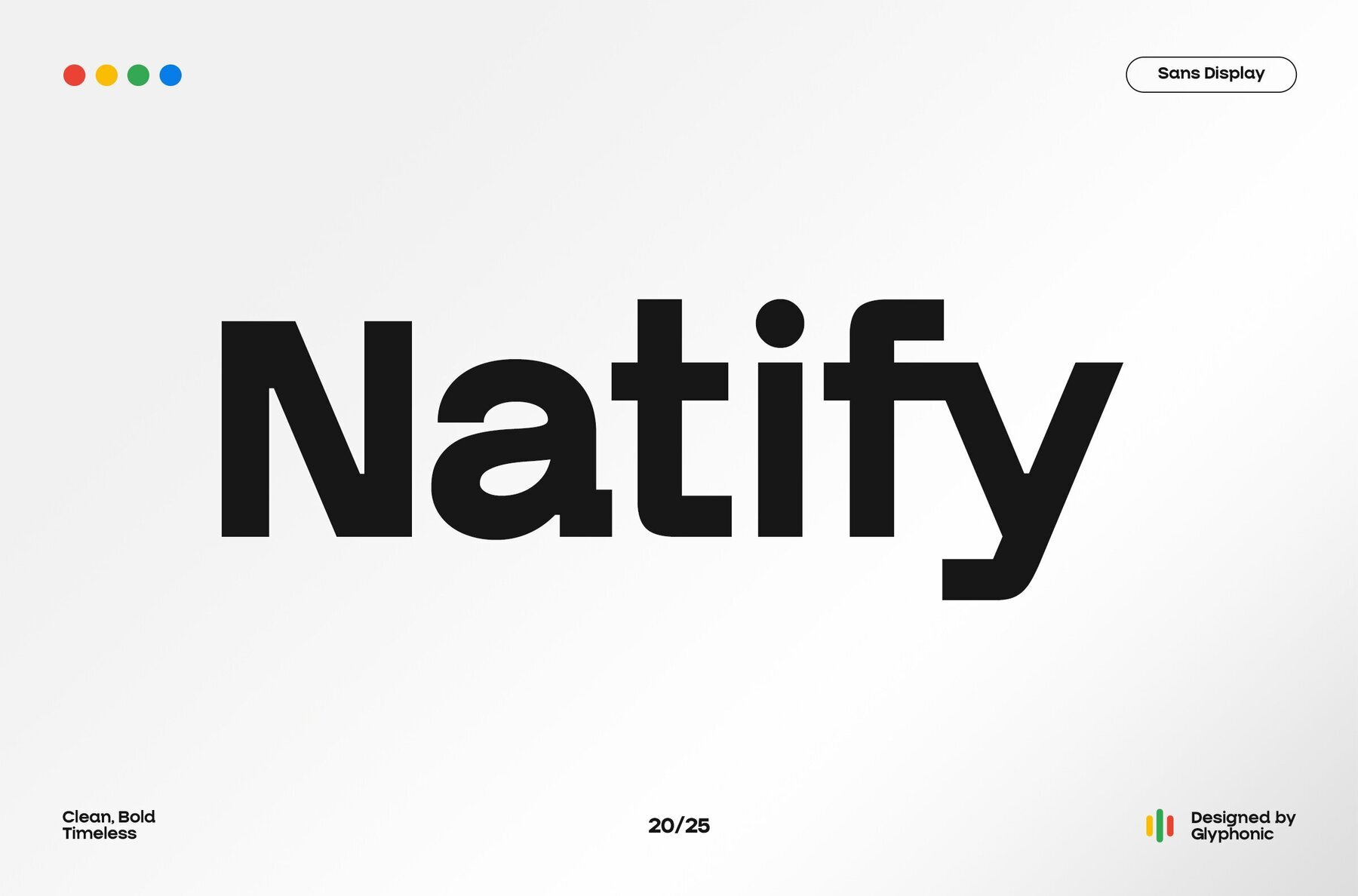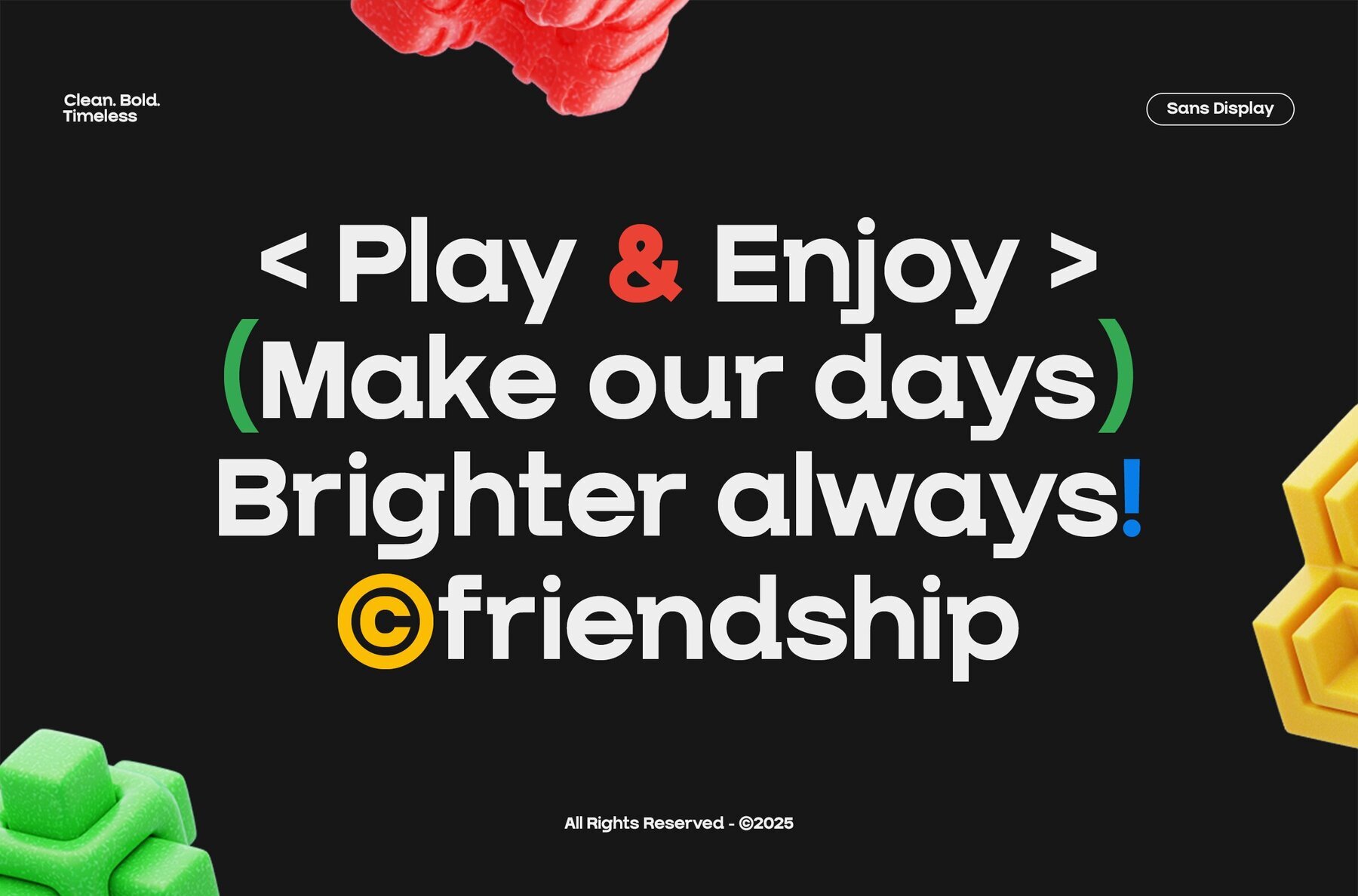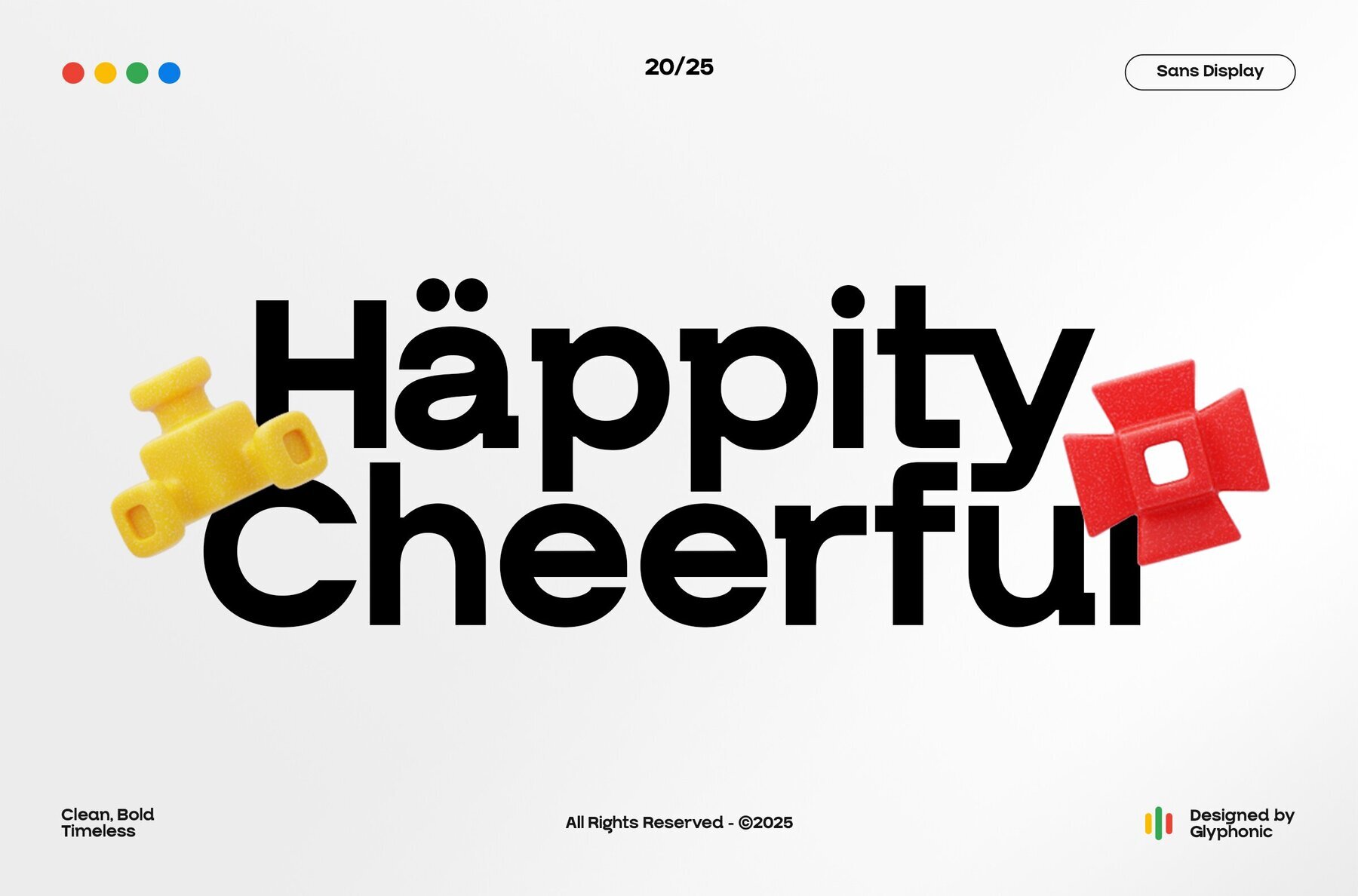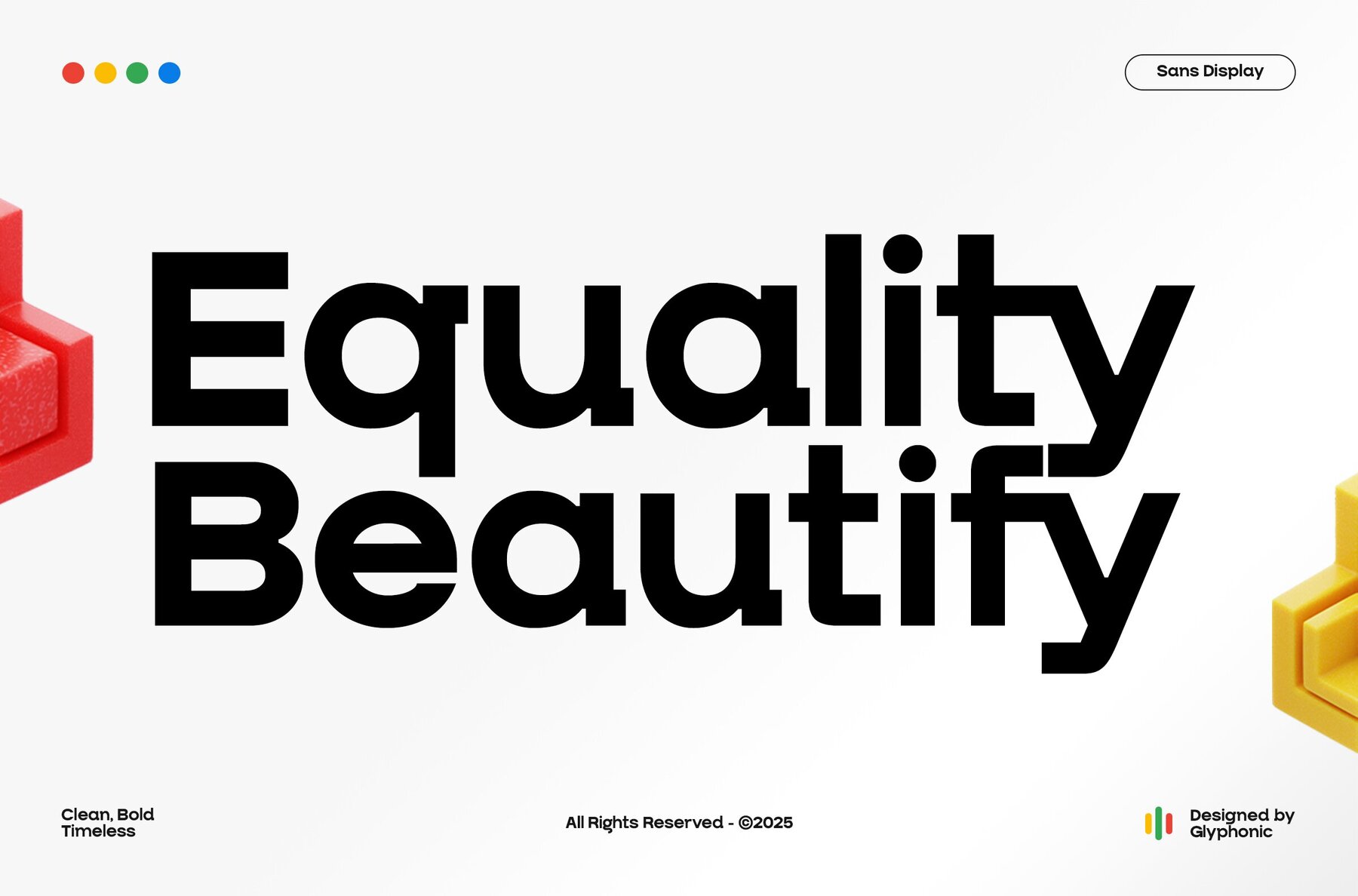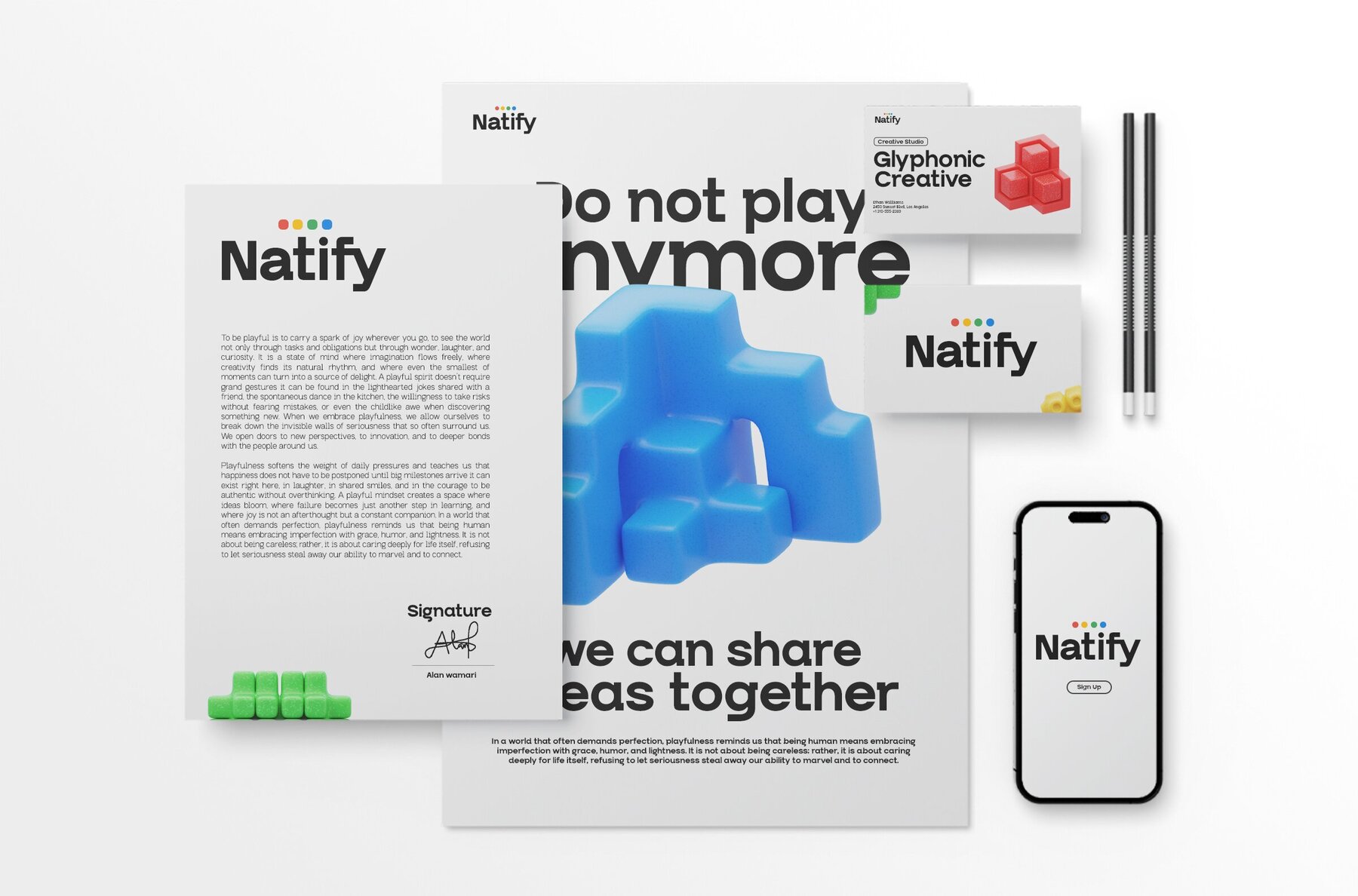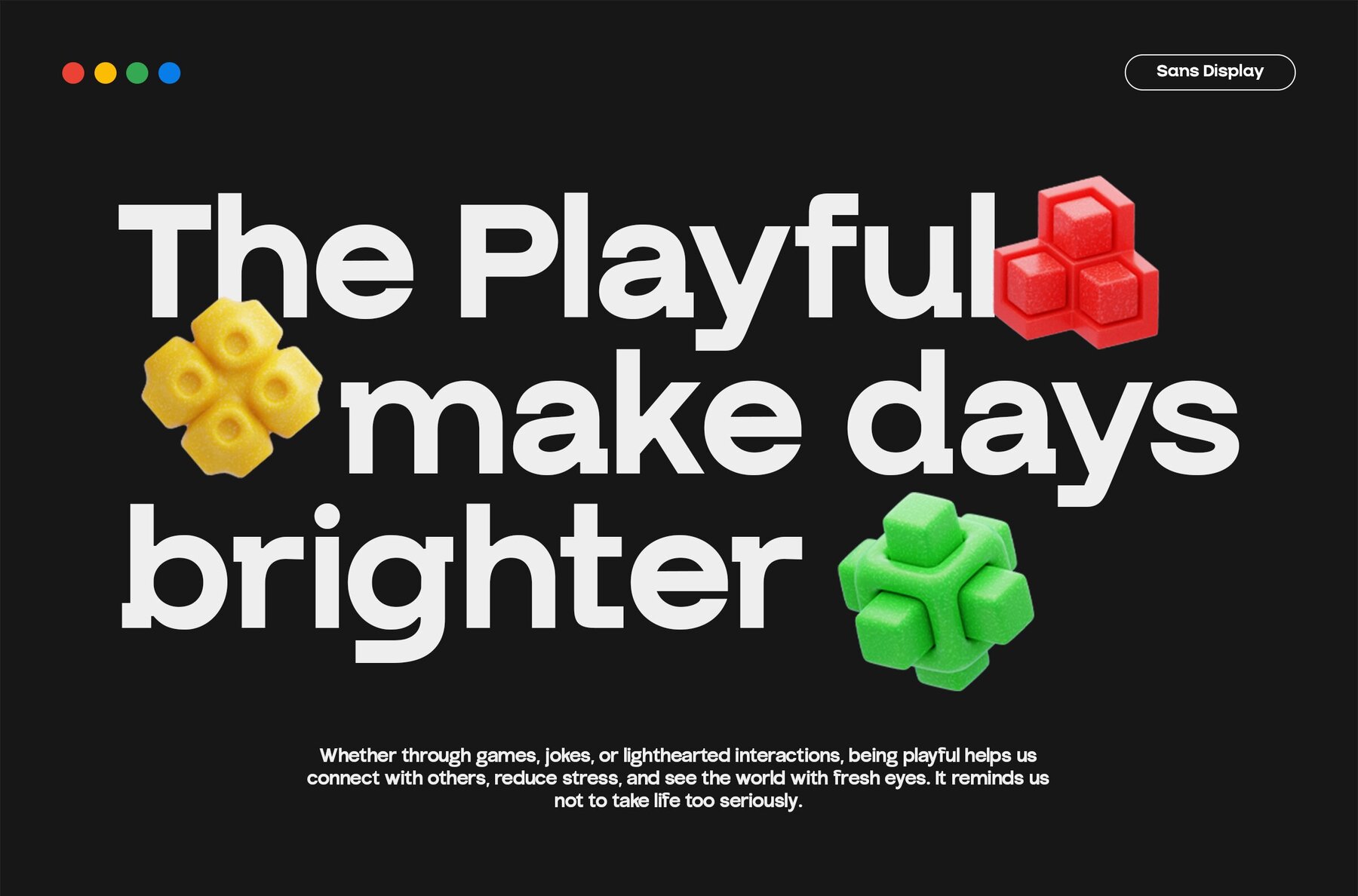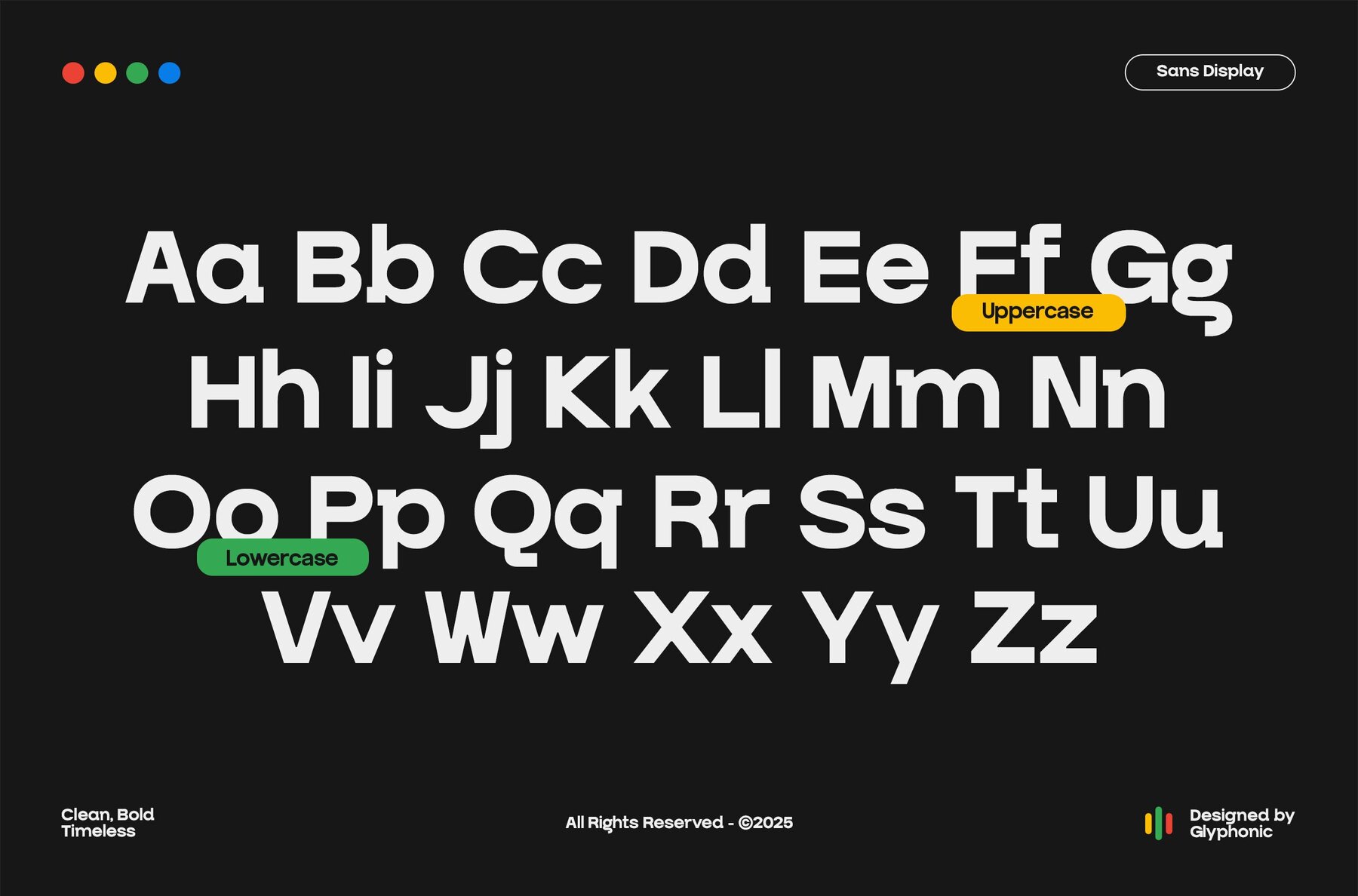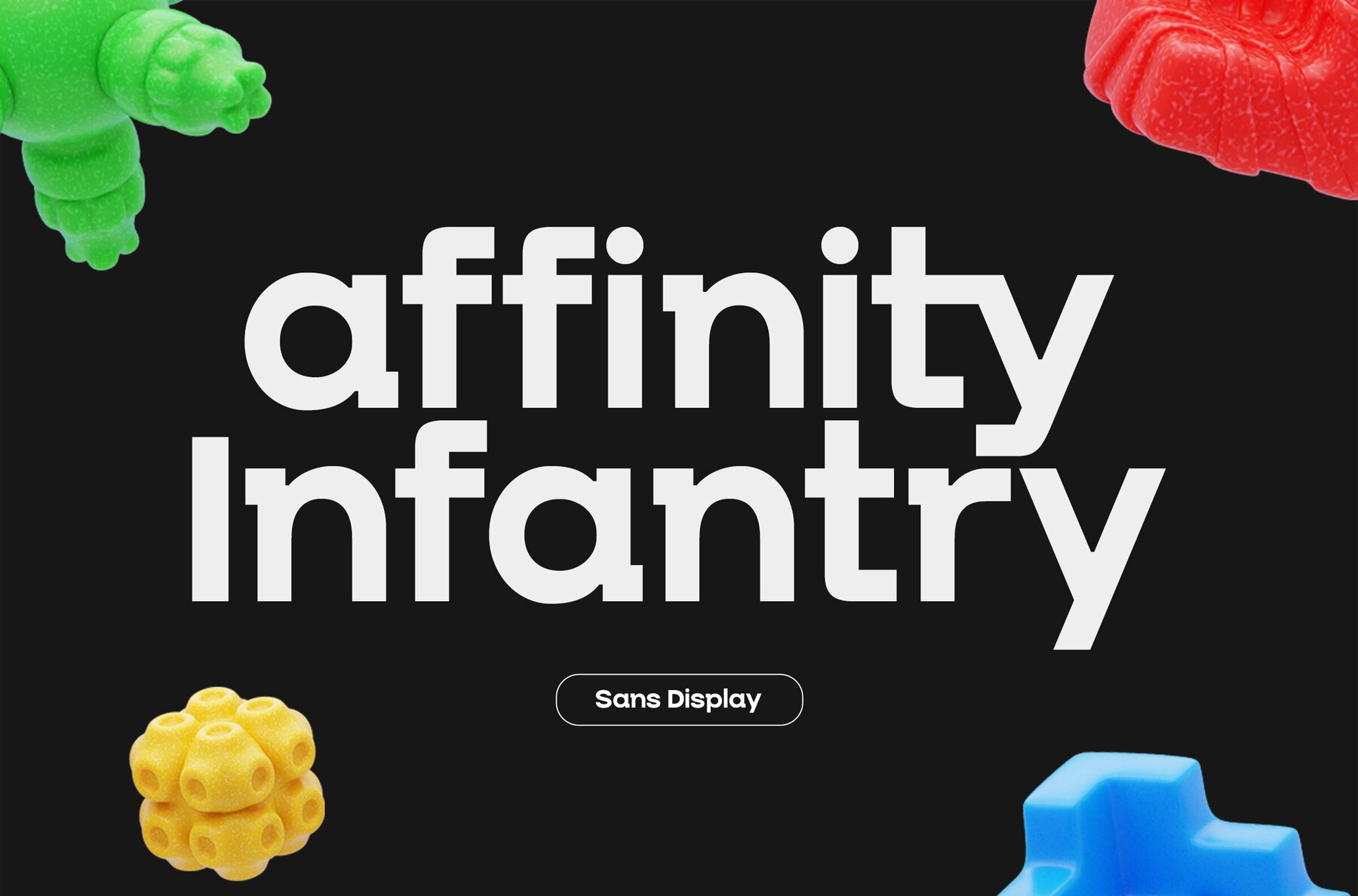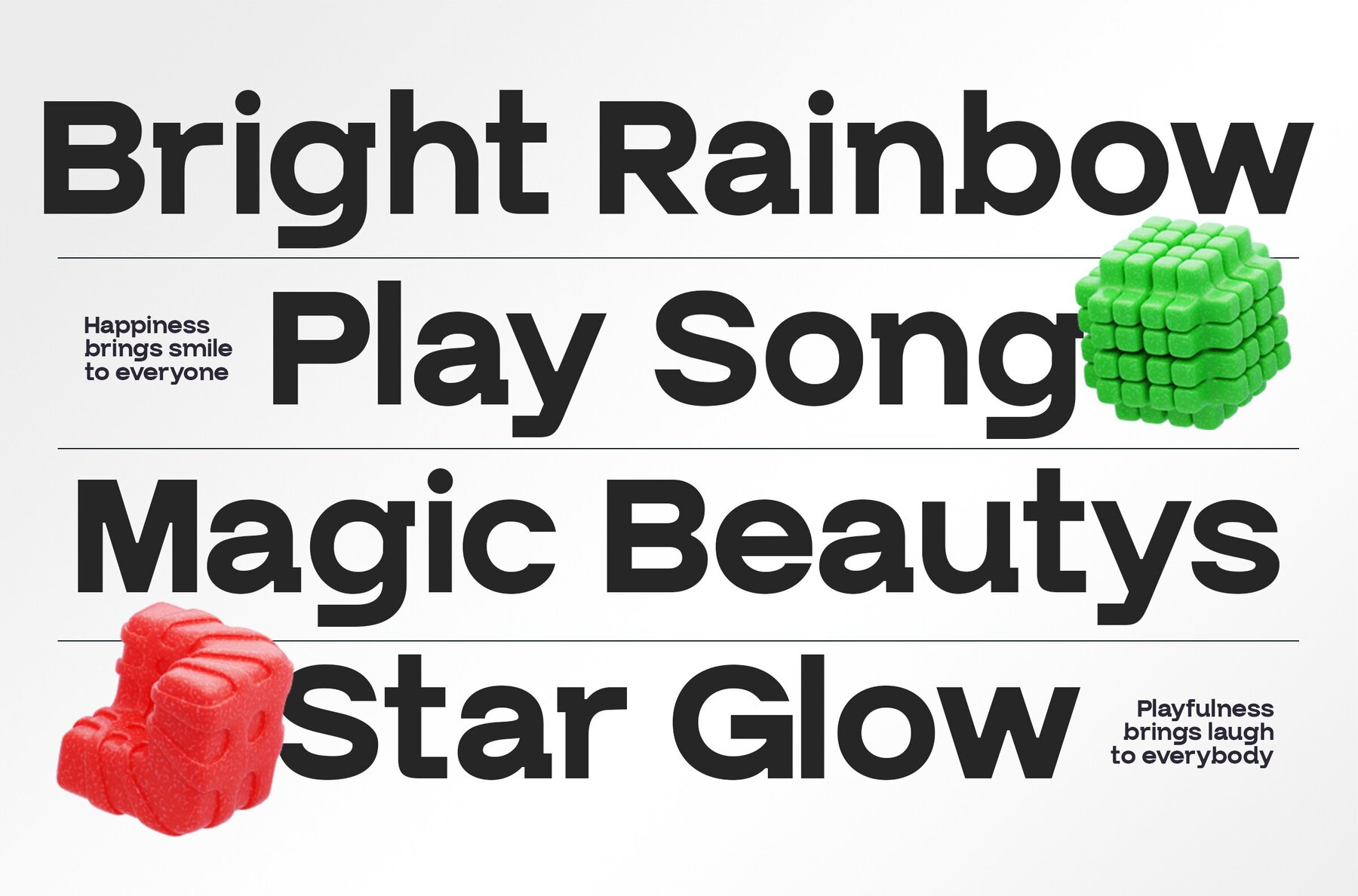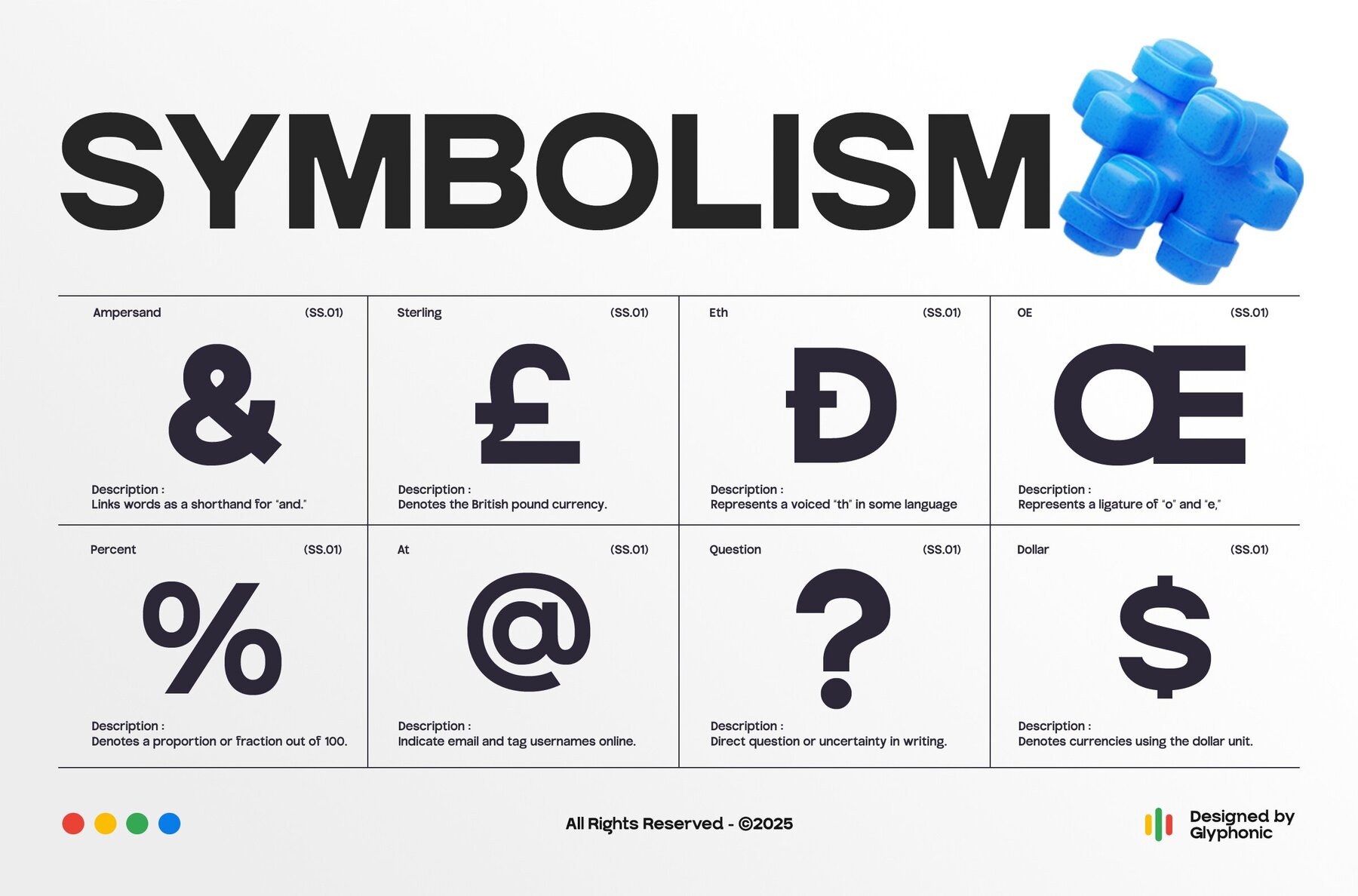
GC Natify Font
GC Natify Extra Bold
GC Natify delights in delivering an assertive yet refined typographic voice, courtesy of its contemporary sans serif design that masterfully balances clarity and versatility. Its bold, geometric structure ensures a commanding presence across both digital and print media. Capturing simplicity with character, GC Natify excels in projects ranging from branding and editorial layouts to tech-oriented and visually striking identities. Standing out through balanced proportions and meticulous detailing, GC Natify proves itself as an adaptable and distinctive choice. It thrives in crafting sleek interfaces, composing impactful headlines, or formulating minimalist posters while infusing a modern elegance and timeless strength into your typographic endeavors.GC Natify: The Power of Modern Sans Serif